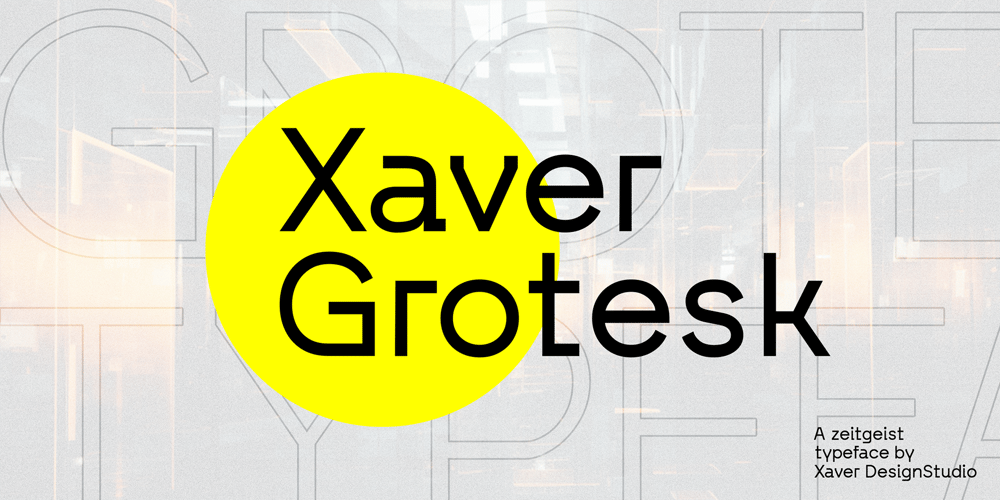
Xaver Grotesk
Xaver Grotesk font
Xaver Grotesk Font Family was designed by Roland Wittl and published by Xaver Design Studio. Xaver Grotesk contains 24 styles and family package options. Xaver Grotesk Variable, a font that emerged in the creative landscape of 2023, stands as a testament to contemporary typographic innovation. This font is not just a mere collection of characters but a meticulously crafted expression of modernity and sophistication. Its genesis was driven by a desire to infuse the typographic realm with a fresh take on the classic grotesque style while embodying a technical allure that whispers of a slightly futuristic essence.At its core, Xaver Grotesk is a testament to the marriage of form and function. The deliberate choice of monospacing adds a unique rhythm and structure to the font, instilling it with a sense of order and balance. The low capital height introduces a distinctive visual characteristic, creating an unconventional yet captivating silhouette that stands out in various design contexts.One of the font’s most striking features lies in its letter design. Each character is meticulously sculpted, bearing angular and horizontal traits that not only convey a sense of modernity but also evoke a hint of technological precision. These angular and horizontal elements work in tandem, shaping the font’s overall personality and lending it a forward-thinking edge.The fusion of these elements—monospacing, low capital height, and angular/horizontal letter design—creates a harmonious interplay that sets Xaver Grotesk apart. It’s not merely a collection of letters; it’s an experience, a visual journey that captivates and engages the viewer. Whether used in digital interfaces, printed materials, or other design mediums, this font transcends its utilitarian purpose to become an artistic statement in itself.